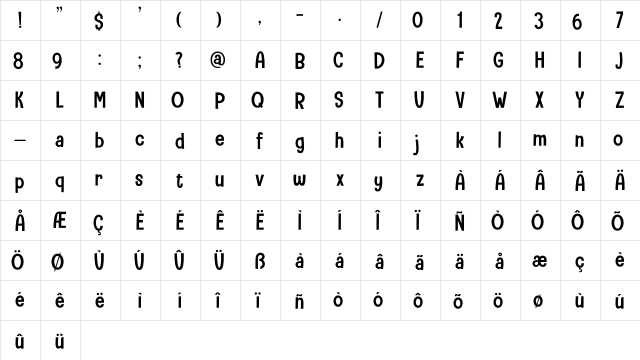
Camping Holiday DEMO Regular
| Foundry | David Kerkhoff |
| Designer | David Kerkhoff |
Design Context for Camping Holiday DEMO Typeface
Camping Holiday DEMO offers clean, dependable letterforms without strong stylistic allegiance, making it a practical choice for designers who need flexibility.